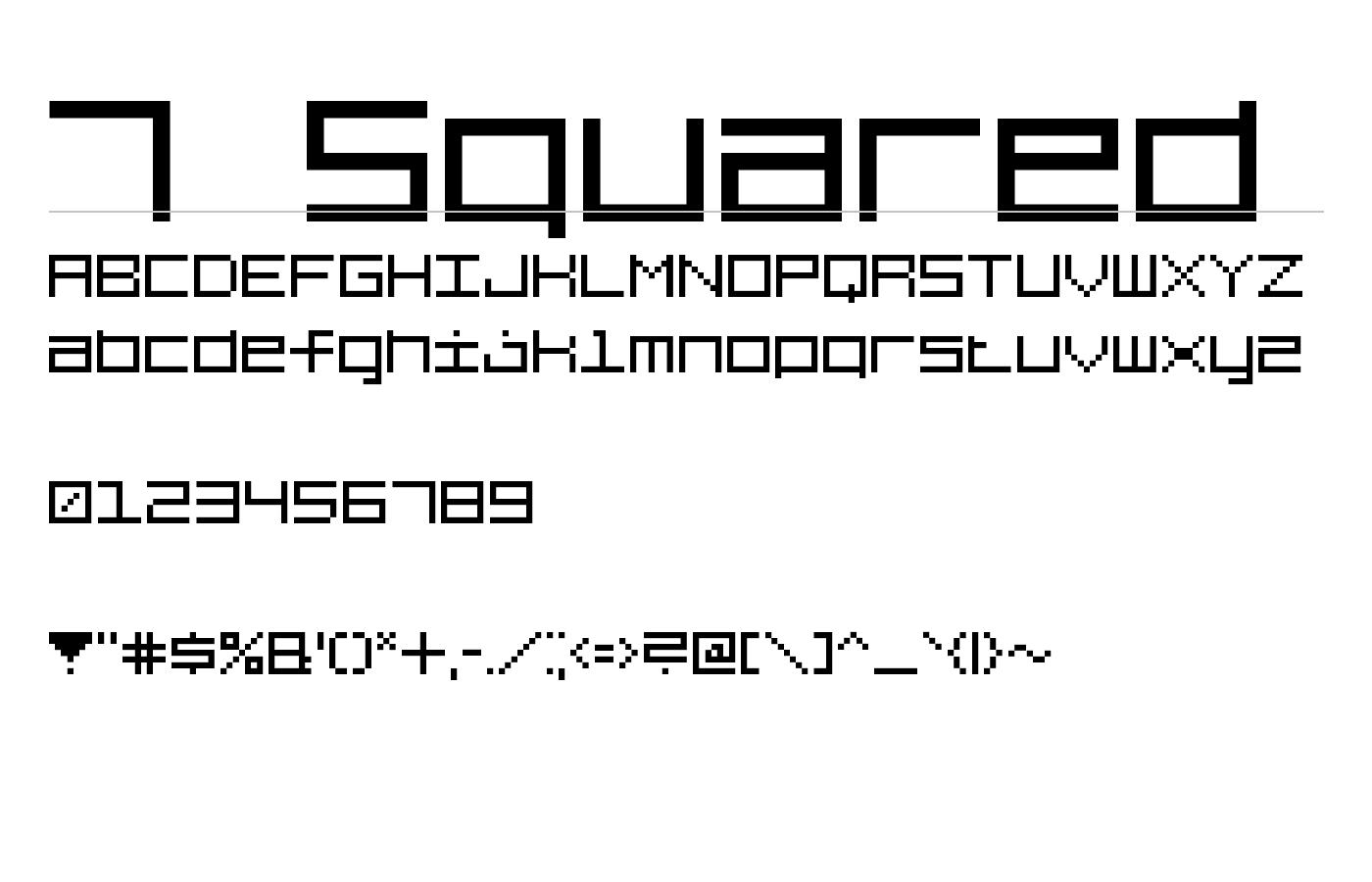
7 Squared is a modern, geometric sans serif font defined by its square, pixel-like shapes and consistent stroke weight. Its clean, technical appearance and monospaced feel give it a futuristic, digital vibe, making it ideal for tech branding, user interfaces, and digital displays. This font stands out in designs seeking a precise, minimalist aesthetic with a nod to retro digital typography.
| Font family | 7 Squared Font |
| Designer | ajoes |